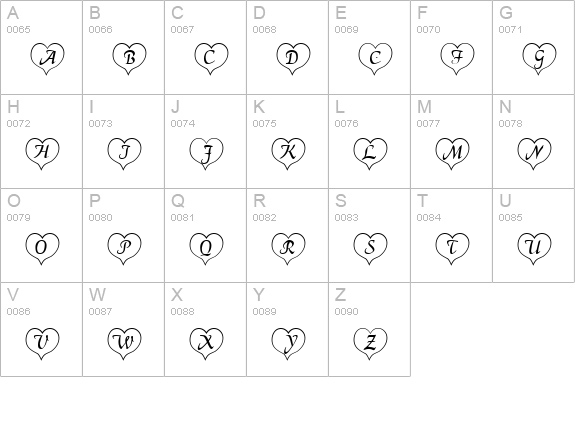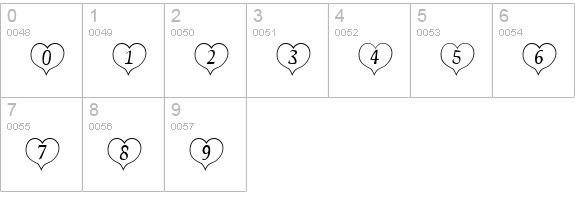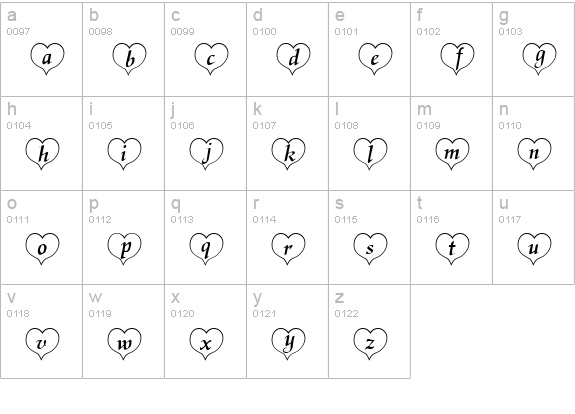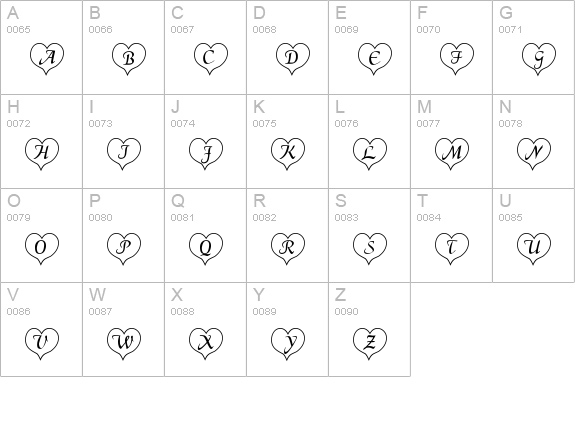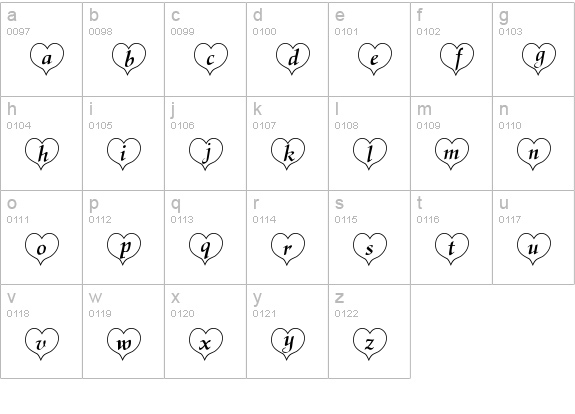
HeartWhite Becker Font Details
HeartWhite Becker is a beautifully crafted font that exudes elegance and sophistication. Its clean and refined lines make it the perfect choice for any project that requires a touch of class. With its graceful curves and stylish letterforms, HeartWhite Becker adds a sense of modernity and professionalism to any design. This versatile font is suitable for a wide range of applications, including logos, branding, invitations, posters, and more. Its timeless appeal makes it a go-to choice for designers who want to create a lasting impression. But what sets HeartWhite Becker apart is not just its stunning aesthetics, but also its accessibility. This font is available for free download at FontsMarket.com, allowing designers of all budgets to enjoy its beauty and versatility. Whether you are a professional designer or a hobbyist, HeartWhite Becker is here to empower your creativity without breaking the bank. So, why wait? Download HeartWhite Becker today and unlock a world of possibilities for your next design project. With its free availability, you have nothing to lose and everything to gain. Let this font be the secret weapon in your design arsenal, elevating your work to new heights of sophistication and style.